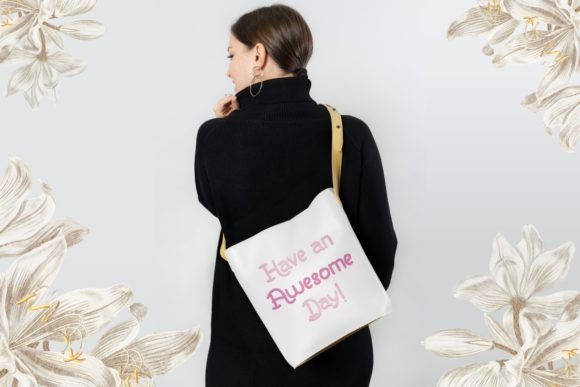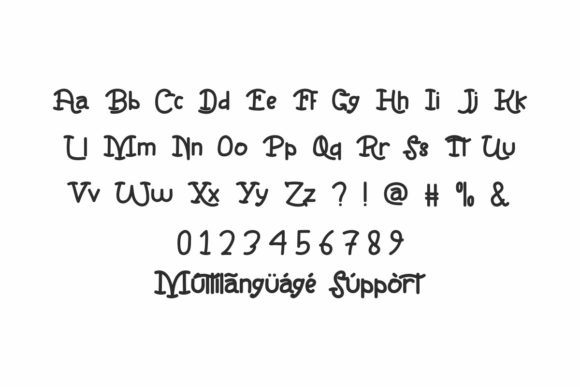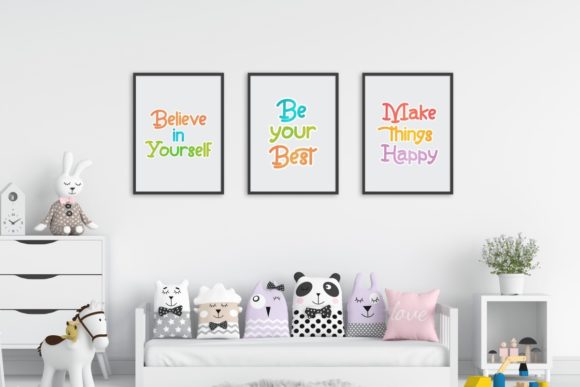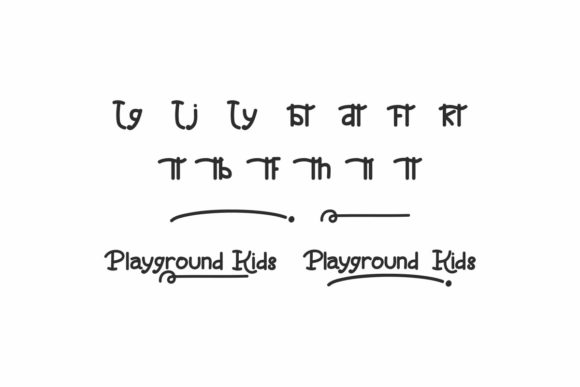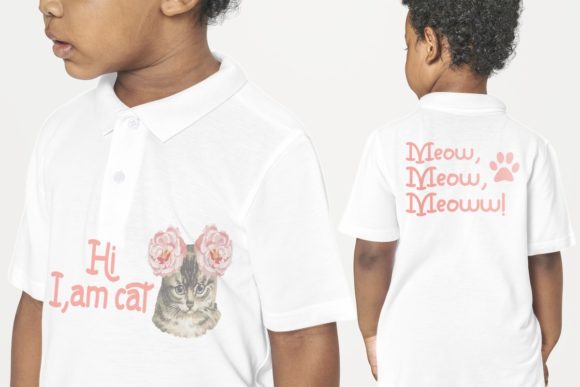
Playground Kids Font
Introducing Playground Kids, a whimsical and charming script font that captures the essence of childhood joy and innocence. Inspired by the boundless creativity of kids in kindergarten, this font is meticulously crafted in every single letter to evoke a sense of playfulness and fun. With its delightful appearance, Playground Kids is sure to add a special touch to your designs, making them instantly jaw-dropping and memorable.
Crafted with care and attention to detail, Playground Kids is more than just a font—it’s a celebration of imagination and creativity. Each letter exudes a sense of spontaneity and curiosity, inviting viewers to embark on a journey of exploration and discovery. Whether you’re designing flyers, headings, logos, branding materials, quotes, products, cards, stationery, invitations, or any other project, Playground Kids infuses your designs with a playful charm that captivates audiences of all ages.
Perfect for projects aimed at children or those young at heart, Playground Kids brings a sense of joy and wonder to every design it graces. Its handcrafted look and feel evoke memories of carefree days spent playing and dreaming, making it the ideal choice for capturing the spirit of childhood in your creative endeavors.
But Playground Kids isn’t just about aesthetics—it’s also designed for practicality and ease of use. Its legible letterforms ensure readability across various mediums and sizes, while its friendly and approachable style makes it versatile for a wide range of design applications. Whether you’re creating digital or print materials, Playground Kids adapts seamlessly to your needs, helping you convey your message with clarity and charm.
With Playground Kids, you have the power to unleash your creativity and make a lasting impression with your designs. Be unique, embrace spontaneity, and start creating today with this delightful and captivating font. Let your imagination soar and watch as Playground Kids adds a touch of childhood magic to everything you create, bringing smiles to faces and joy to hearts wherever it goes.